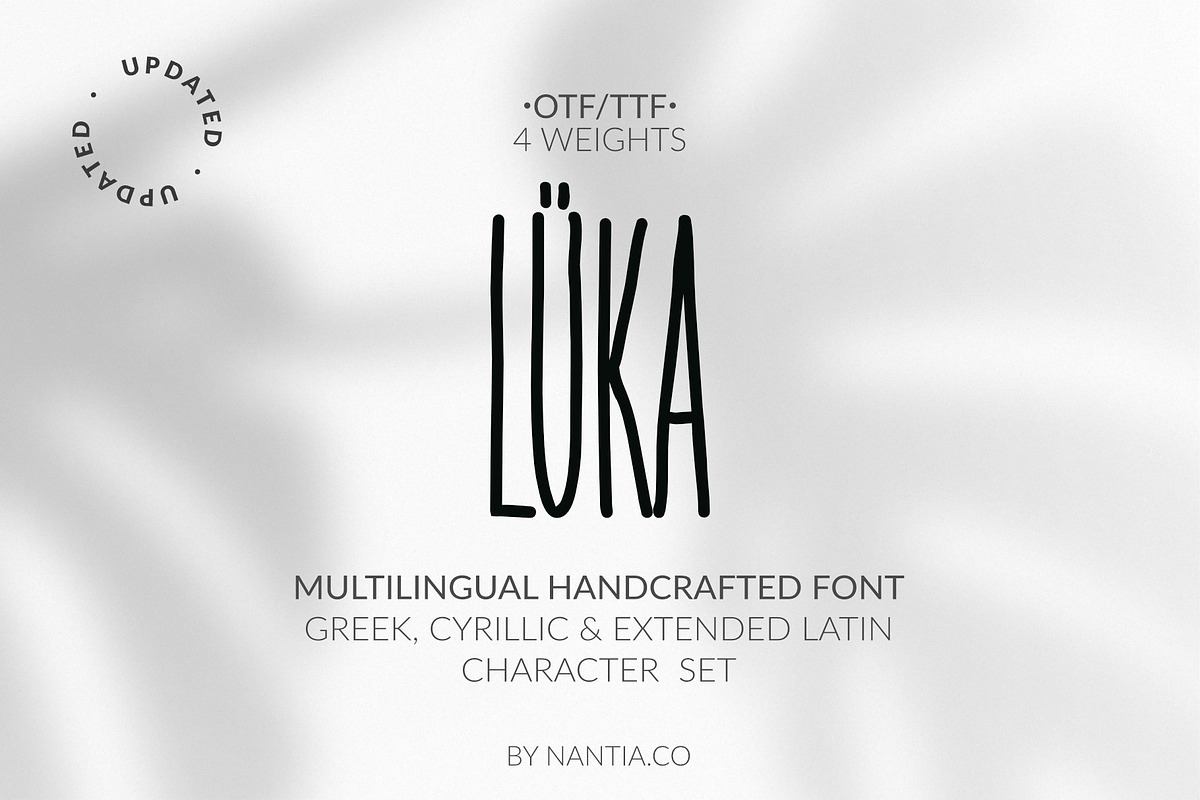
HandWritten Greek Cyrillic Font Free Download is a versatile and authentic script typeface that supports both Greek and Cyrillic alphabets. With its natural, handwritten look, this font is ideal for multilingual branding, personal letters, travel blogs, educational materials, cultural projects, and anything that needs a warm, personal touch across multiple language systems.
The font captures the essence of real handwriting—complete with fluid strokes, imperfect lines, and expressive character. It’s readable, stylish, and emotionally engaging, making it perfect for both casual and professional use.